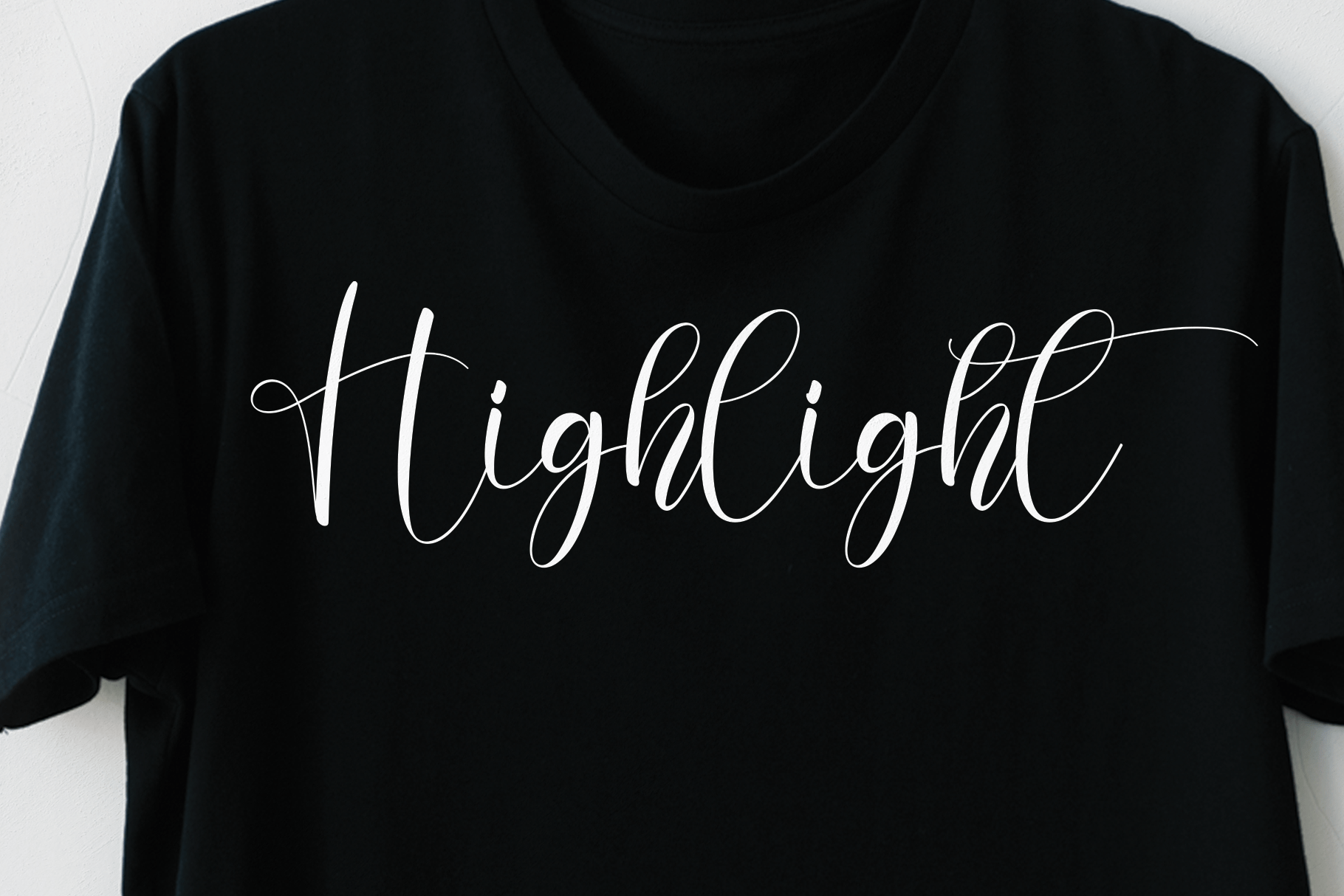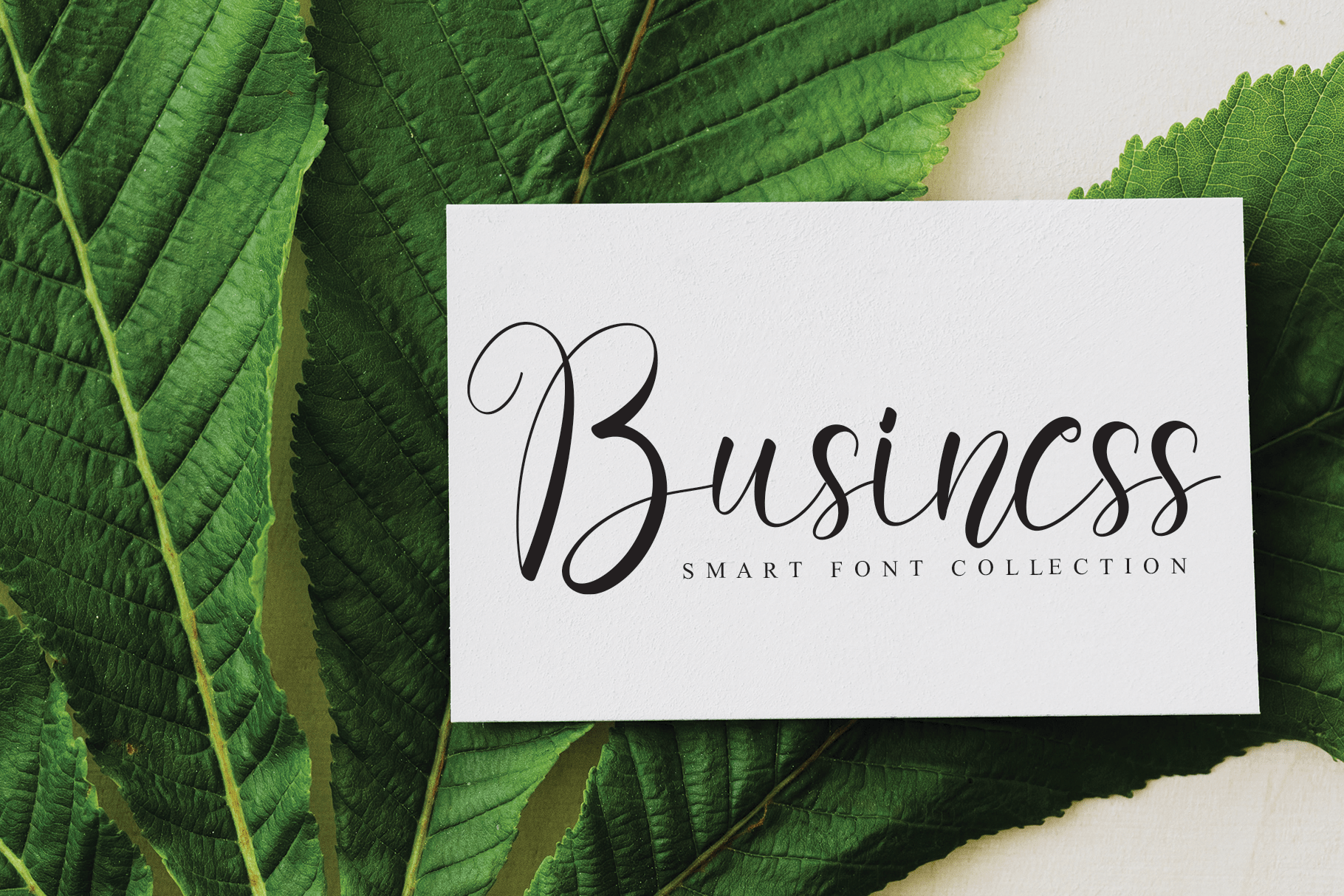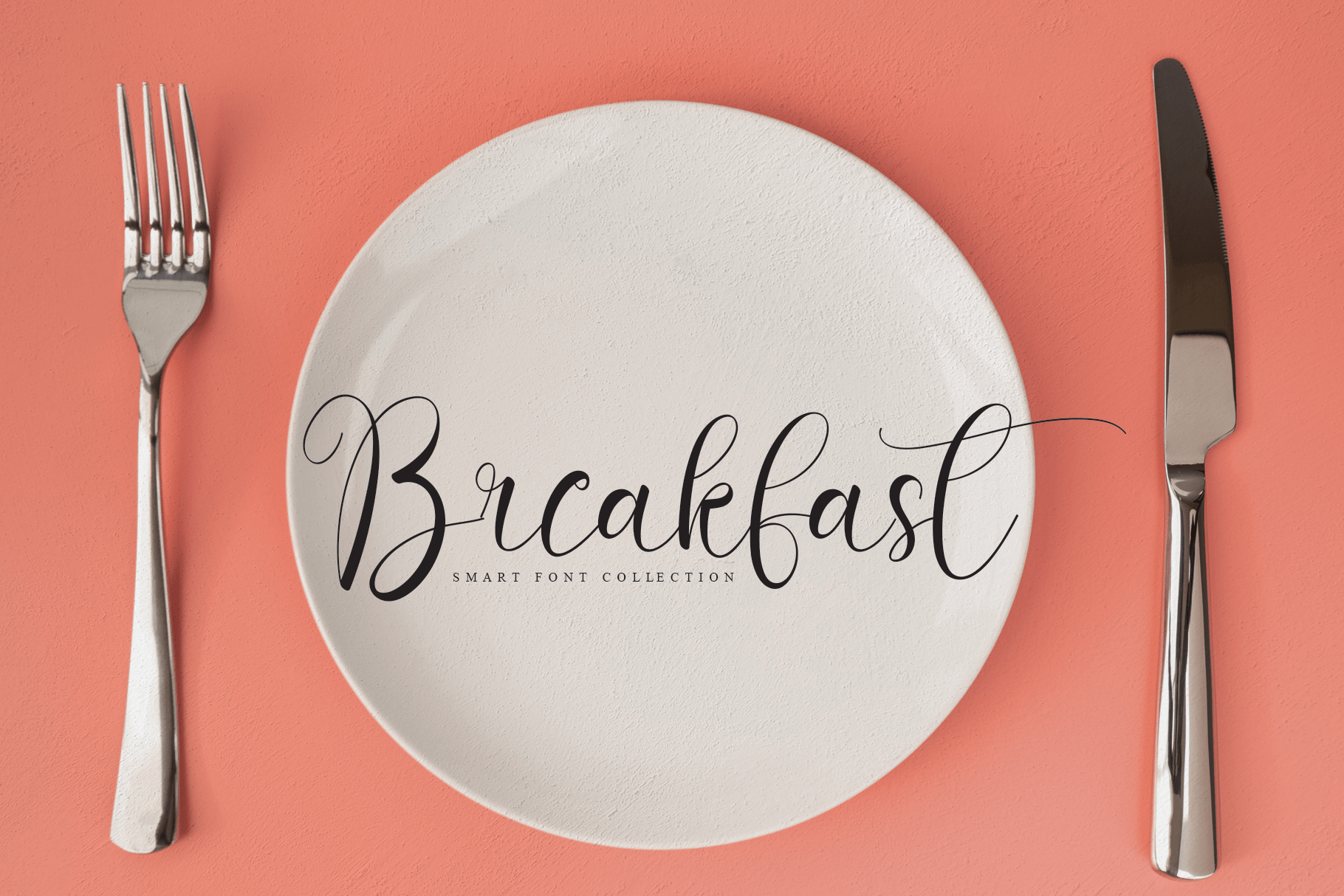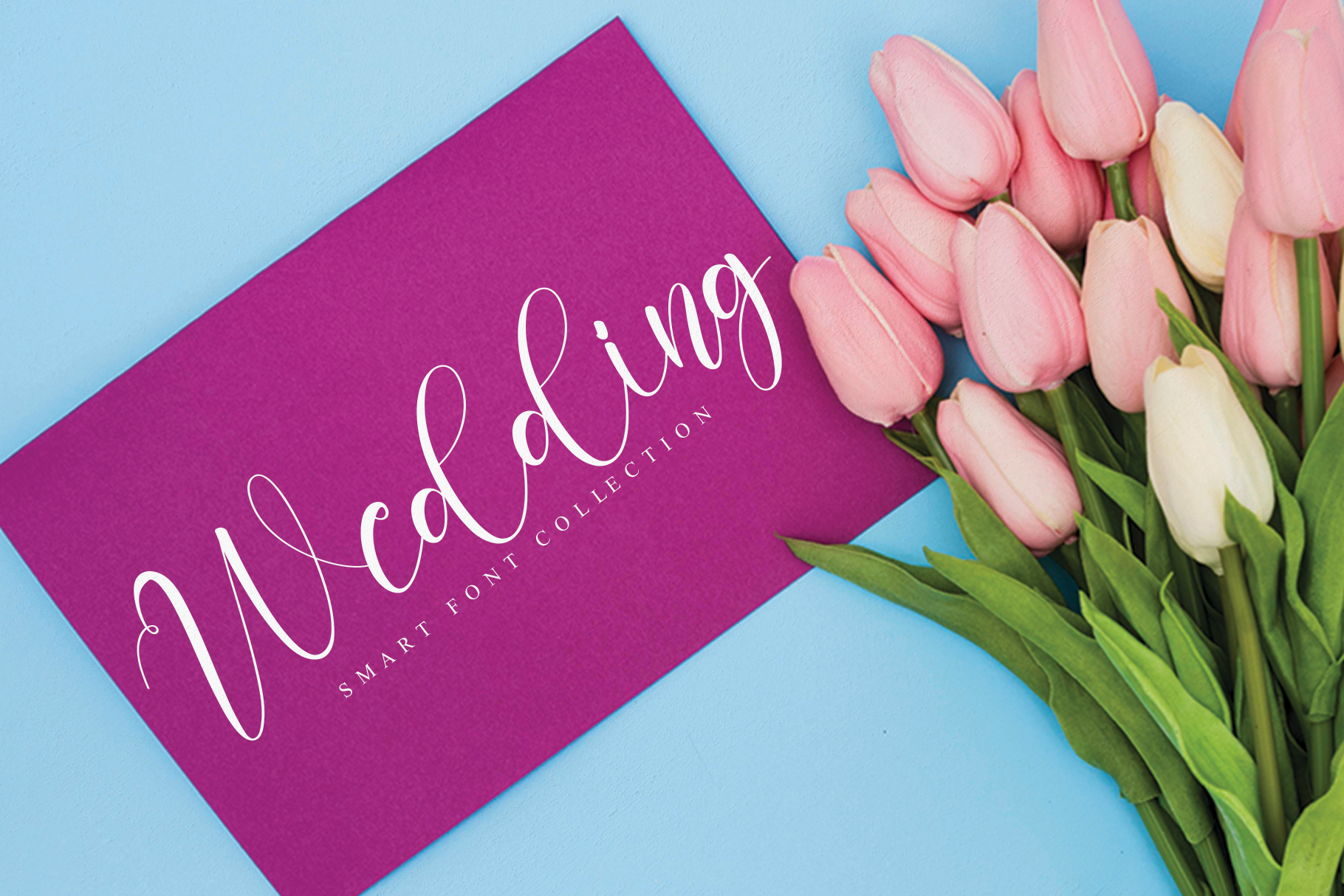
Angel Calligraphy Font
This is a stylish and delicate script font. It has a clean, thin and smooth vibe and it will be a hit for any design that you want to add it to.
the latest style letters are perfect for wall displays, wedding invitations, social media post logos, advertisements, product packaging, product designs, labels, photography, watermarks, invitations, stationery, and any project that requires taste handwriting.